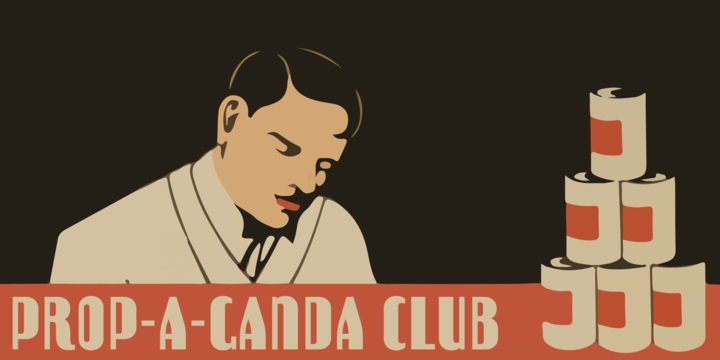
PAGClub Font
PAGClub Font is perfect for nightclub branding, entertainment venues, sports club identities, fitness center signage, social club materials, membership organizations, recreational facilities, event promotions, party invitations, music venue communications, leisure industry branding, and dynamic entertainment marketing.
What makes PAGClub Font exciting is its energetic charisma that captures the vibrant spirit and social energy of club culture through bold, dynamic letterforms that pulse with excitement and community connection. This electrifying typeface embodies the essence of social gathering and entertainment excellence, combining confident strokes with rhythmic flow that resonates with audiences seeking fun, connection, and memorable experiences. The font's powerful presence and social character create immediate recognition while maintaining the clarity essential for club communications and entertainment marketing. Its dynamic personality makes it perfect for venues and organizations that want to communicate energy, exclusivity, and the magnetic appeal of social experiences and community gathering.
The PAGClub Font family includes regular, medium, and bold weights, featuring dynamic alternates, energetic ligatures, and club-inspired design elements. The character set incorporates entertainment symbols, rhythmic numerals, and expressive punctuation marks that enhance the font's social character and provide designers with comprehensive entertainment typography solutions for vibrant brand expressions.